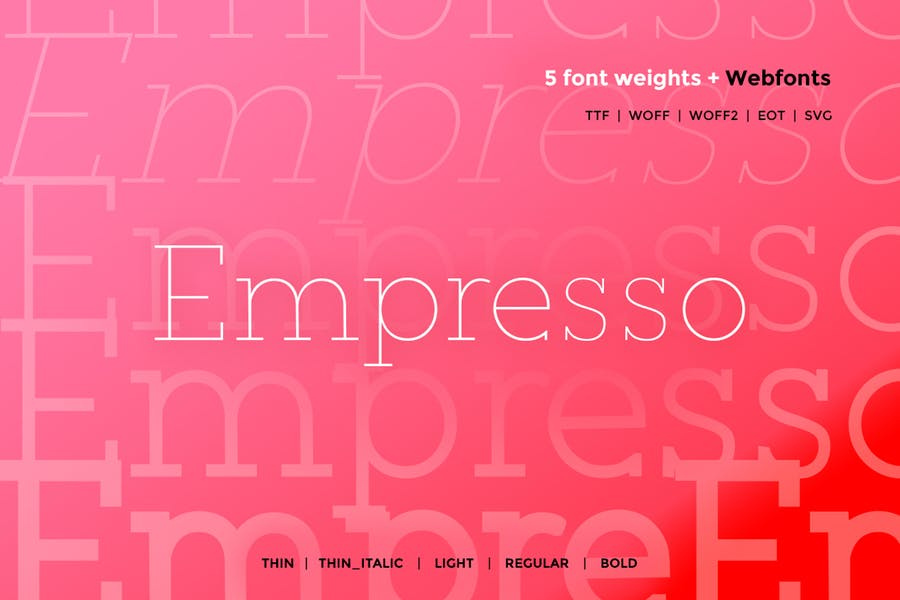
Empresso - Classic WebFont with 5 weights
Empresso Classic Font is perfect for luxury branding projects, elegant logo design, high-end editorial layouts, premium magazine headers, sophisticated book covers, upscale packaging design, refined web typography, professional business materials, and classic advertising campaigns. This distinguished typeface works exceptionally well in both digital and print environments where timeless elegance is paramount.
What makes Empresso Classic WebFont so exciting is its masterful combination of traditional serif craftsmanship with modern digital optimization. The font features beautifully proportioned letterforms with refined details, elegant curves, and sophisticated character spacing that creates an atmosphere of prestige and authority. Its classical inspiration paired with contemporary functionality makes it ideal for brands seeking to convey heritage, quality, and trustworthiness while maintaining modern relevance.
The Empresso Classic WebFont family includes multiple weights from light to bold, along with italic variants and small caps options. Each style maintains the typeface's distinguished character while offering comprehensive language support, extensive punctuation sets, ligatures, and special characters designed specifically for web performance and cross-platform compatibility.
This remarkable typeface represents the pinnacle of classical typography adapted for modern digital applications. Whether you're creating luxury brand identities, designing premium editorial content, or developing sophisticated web experiences, Empresso Classic Font Free Download provides the elegance and reliability needed to establish credible, high-quality visual communications. The font's refined aesthetic makes it particularly suitable for financial institutions, luxury goods, legal firms, and premium service providers.
The meticulously crafted details and optimized hinting in Empresso Classic WebFont ensure crystal-clear rendering across all devices and browsers. Its excellent readability in both body text and display sizes, combined with its web-optimized file structure, makes it an essential choice for designers prioritizing both aesthetic excellence and technical performance in their digital projects.